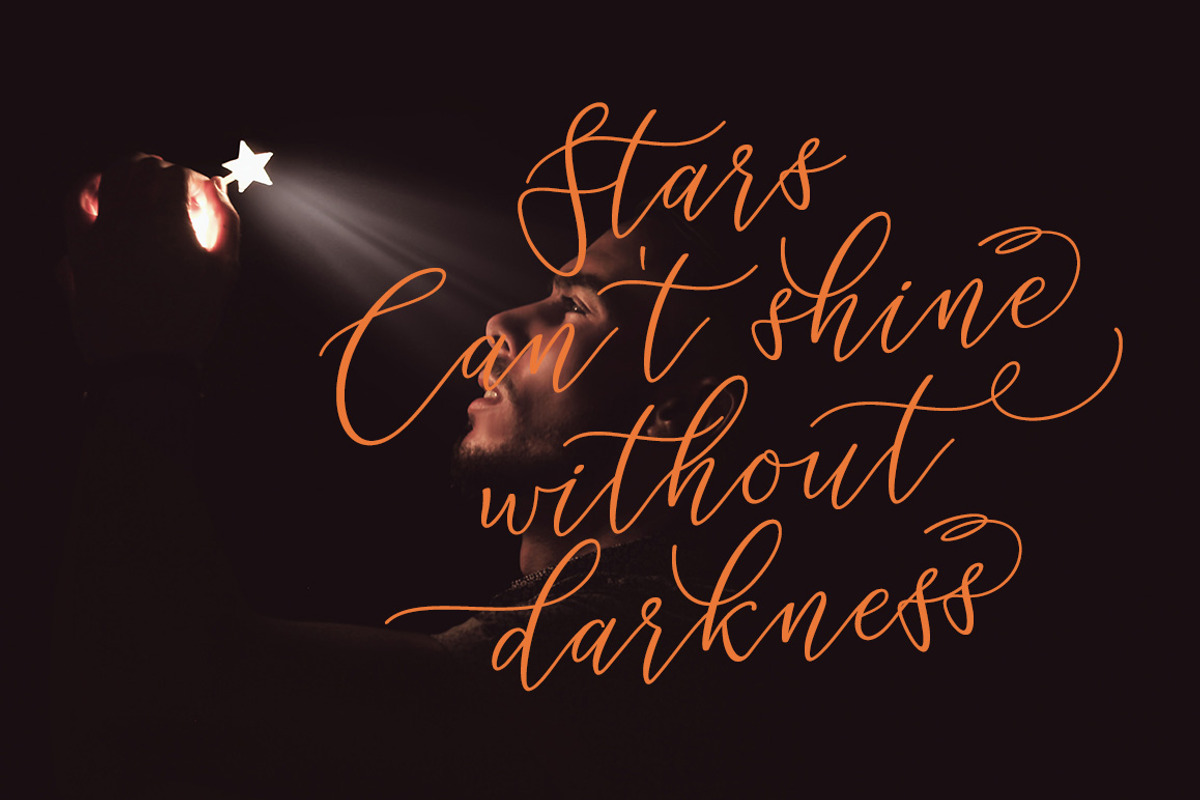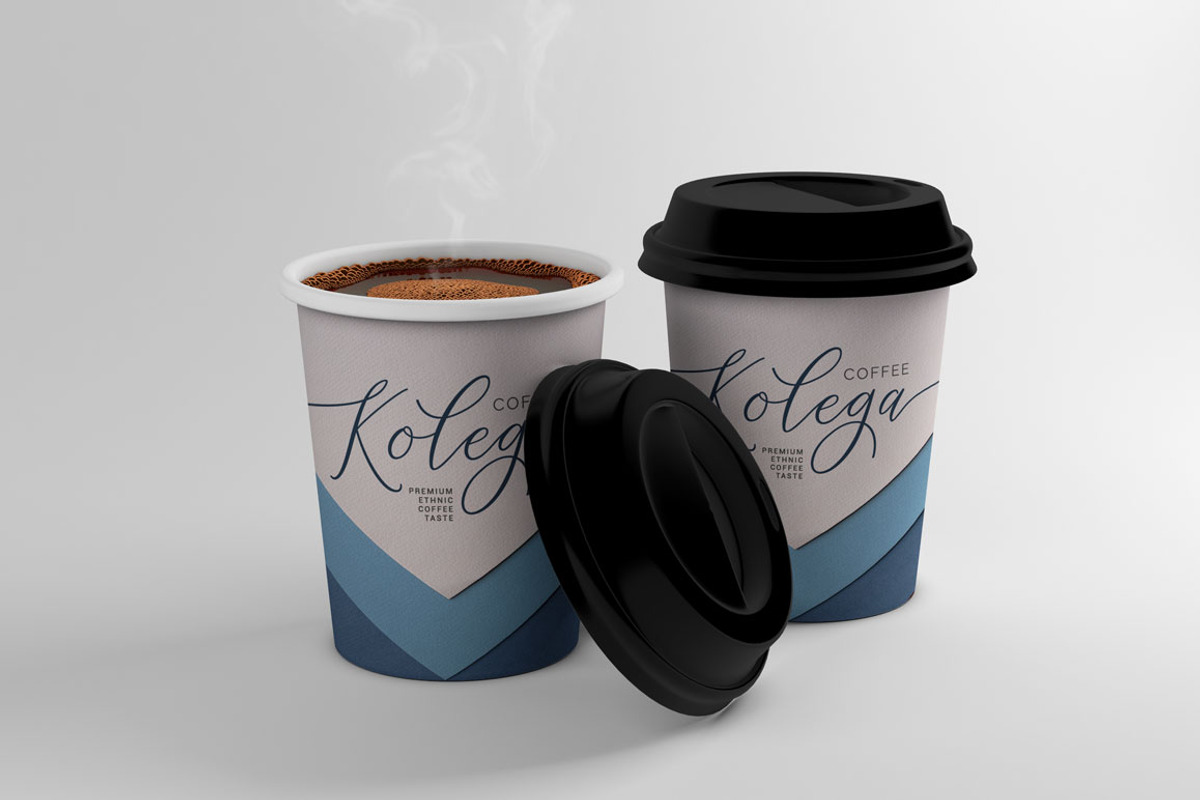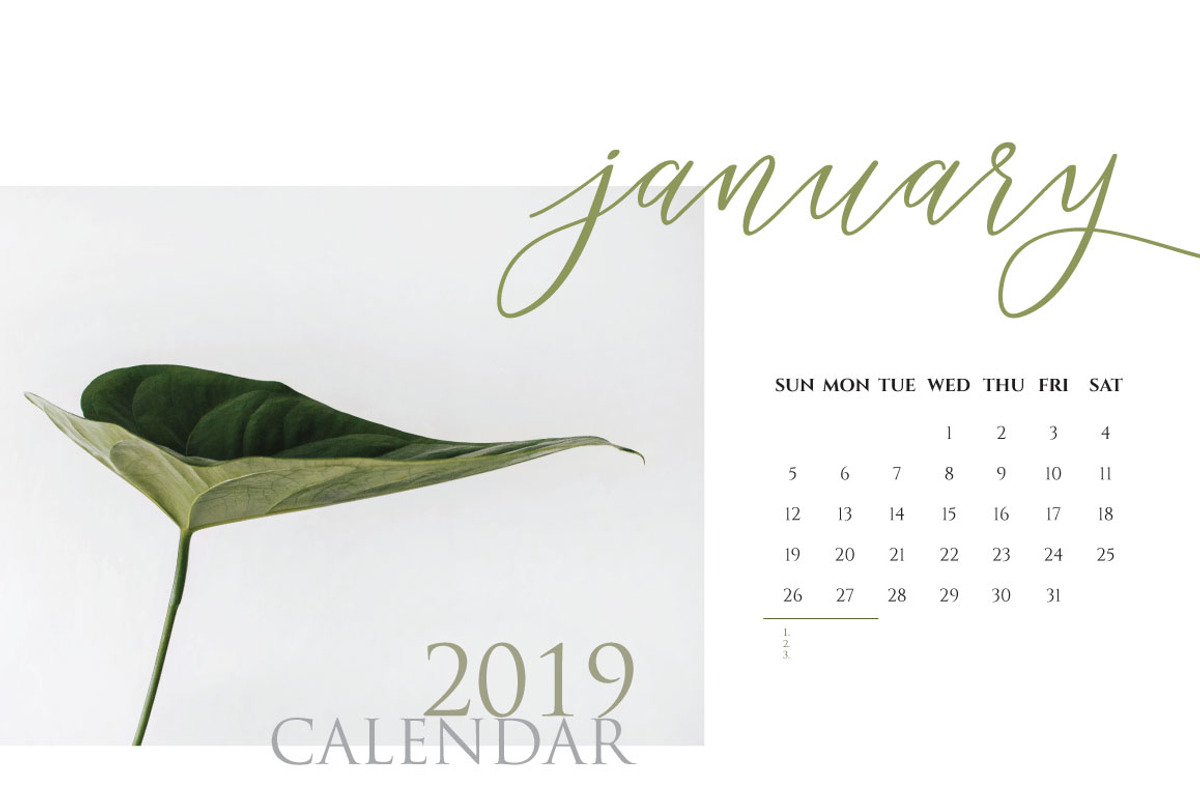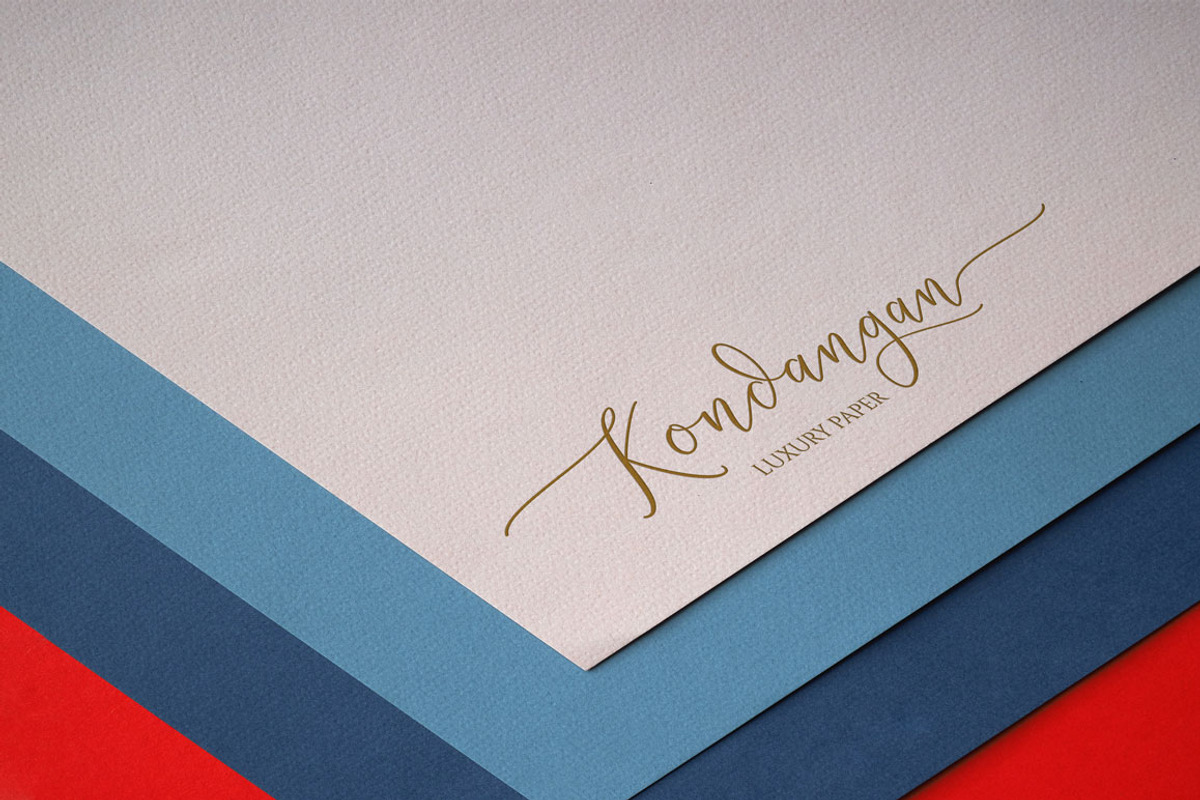
Rejoice Typeface
Rejoice is a modern typeface based on hand lettering that consists of an irregular swirling and flowing that gives the impression of handwriting, so it looks beautiful. This Typeface suitable for wedding invitations, greeting cards, quotes, photo captions, posters, branding, design of water-based paints, correspondence, and a variety of other purposes.
Rejoice includes several Ligatures, Contextual Alternates,Stylistic Alternates, Stylistic Sets ( These alternates are accessible by turning on 'Stylistic Alternates' in Photoshop, or via any software with a glyph panel, e.g. Adobe Illustrator, Photoshop CC ), and has given PUA encoded (specially coded fonts).
- Standard Ligatures
- Contextual Alternates
- Stylistic Sets
Rejoice Typeface by banks fits naturally into Branding, posters, packaging, typography.